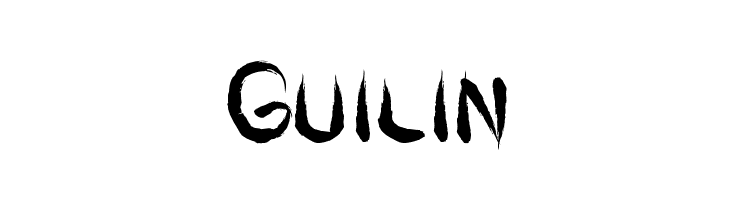
A bold, expressive brush-style font with dynamic strokes and a hand-painted appearance.
A bold, textured font with a brush-like, hand-drawn appearance.